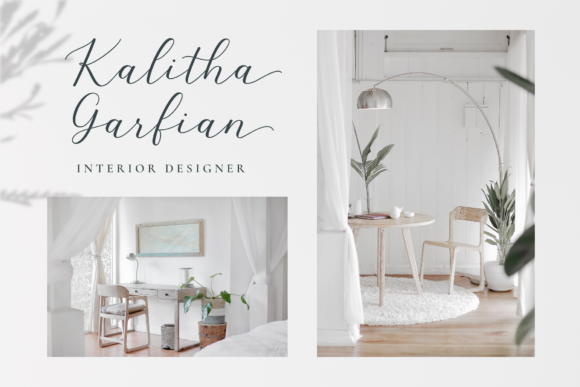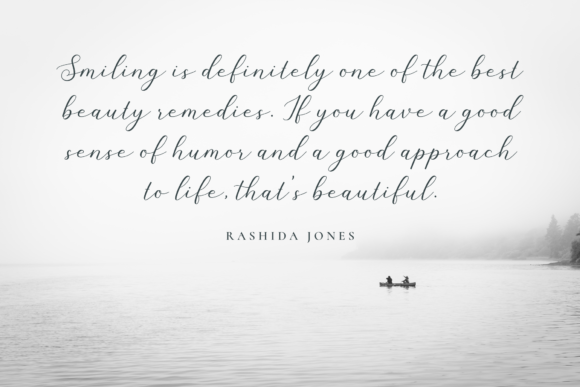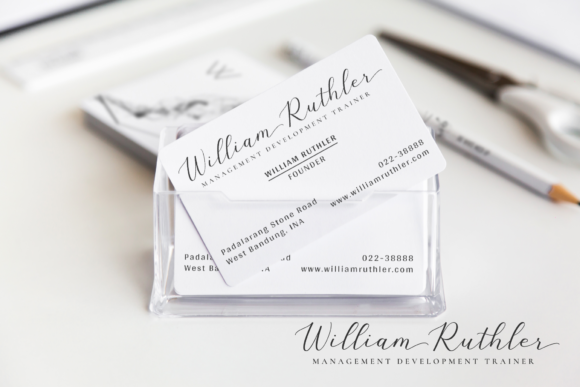
Introduction to Sherlina Font
Have you ever been stuck in the creative process, unable to find the perfect font to match your vision? I know I have. But one day, while brainstorming ideas for a social media campaign, I stumbled upon the Sherlina Font – and it was love at first sight! Its adorable handwritten style and beautiful swashes immediately caught my attention, and I knew I had to learn more.
The Sherlina Font is more than just a pretty face – it’s a valuable design resource for any creative project. With its high-quality design and free download option, it’s an accessible and affordable choice for designers looking to elevate their work. Whether you’re working on a DIY project or creating content for Instagram, this font is sure to bring a personal touch and make your designs stand out.
So, what makes the Sherlina Font so special? Let’s dive in and explore the features that make it a must-have for any designer.
Key Features of Sherlina Font
- High-quality design for creative projects, available for free download.
- Unique, elegant script font with a transparent background, perfect for adding a touch of sophistication to your design.
- Font size: 400 characters, with a resolution of 1024 x 1024 DPI, making it suitable for both web and print designs.
- Perfect for wedding invitations, quotes, and other creative projects where a beautiful script font is required.
- Unique characteristics include a flowing, cursive design with subtle flourishes, adding a touch of elegance to any design.
Honest Review: Sherlina Font
As a designer, I’m always on the lookout for high-quality design resources to elevate my creative projects. I recently stumbled upon the Sherlina Font, and I’m excited to share my thoughts on it.
- The Sherlina Font boasts a stunning aesthetic, with elegant lines and a modern feel.
- The font is highly versatile and can be used for a wide range of creative projects, from branding to editorial design.
- The transparent background makes it easy to use in various design contexts.
- The Sherlina Font may not be the best choice for designers looking for a bold, statement font.
- The font family is relatively small, which may limit its suitability for complex, multi-font projects.
Overall, I’m impressed with the Sherlina Font’s quality and versatility. While it may have some limitations, it’s an excellent addition to any designer’s toolkit. If you’re looking for a high-quality, free font to elevate your creative projects, the Sherlina Font is definitely worth checking out.
Tips for Getting the Most Out of Sherlina Font
Use the Sherlina Font in conjunction with a transparent background to create visually striking designs. Experiment with different font sizes and styles to achieve the desired effect.
Common Use Cases for Sherlina Font
The Sherlina Font is ideal for creative projects such as graphic design, digital art, and typography. Its high-quality design makes it perfect for use in presentations, documents, and graphics.